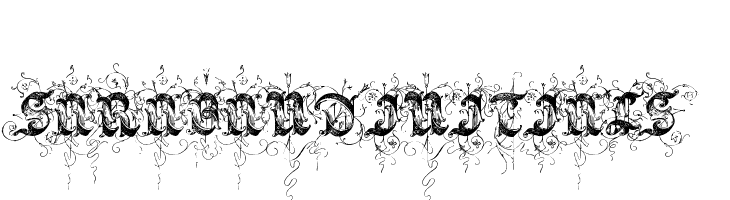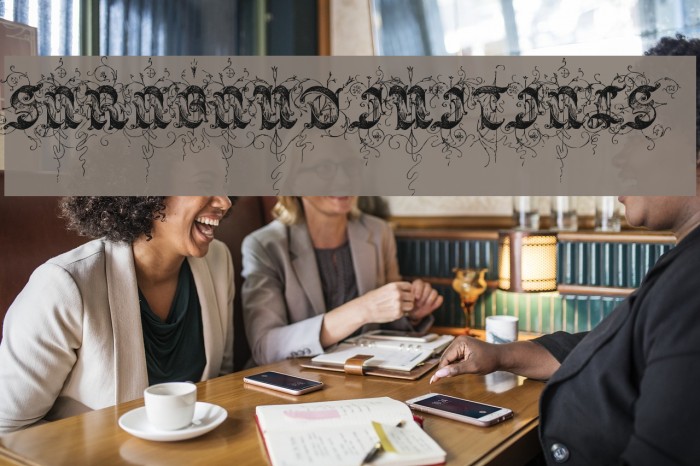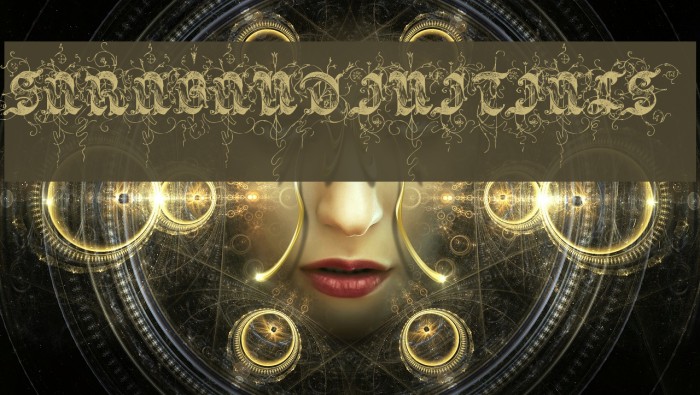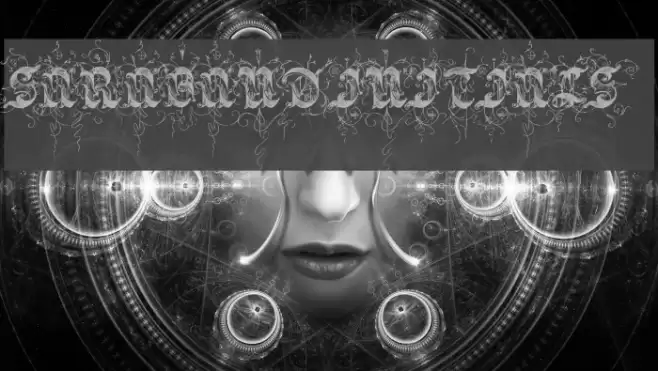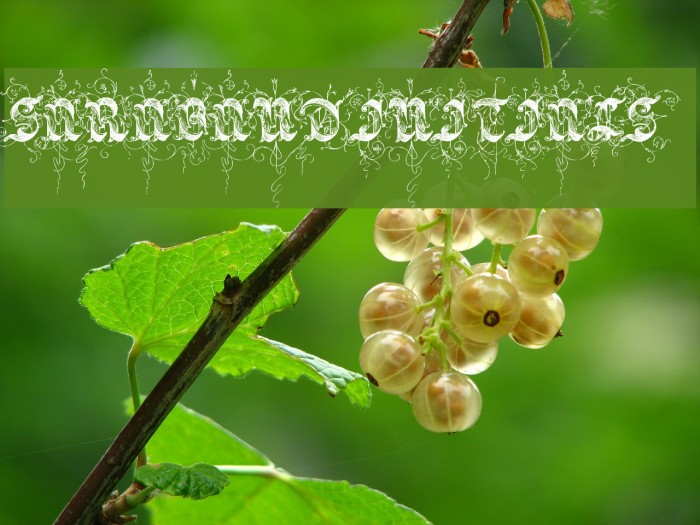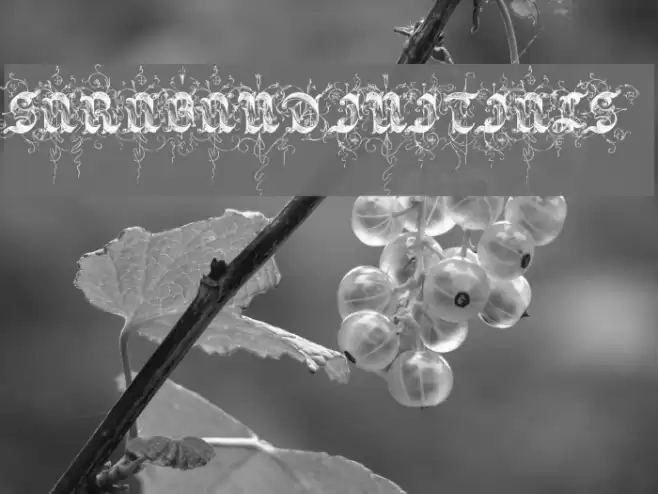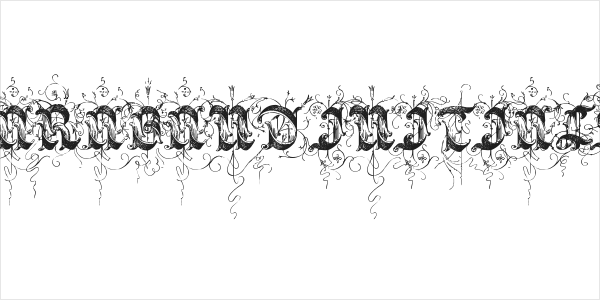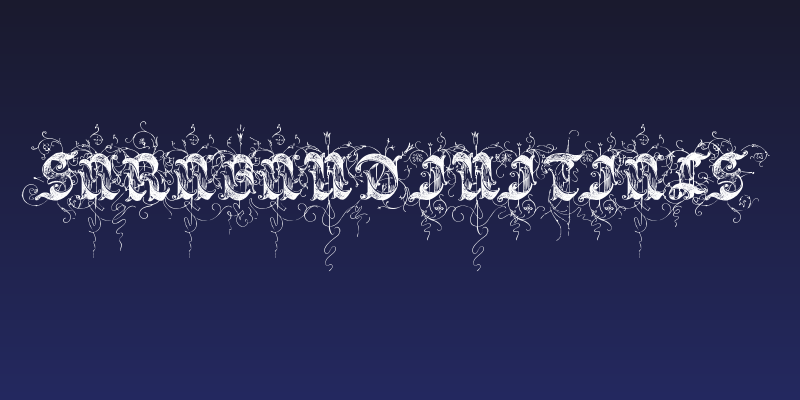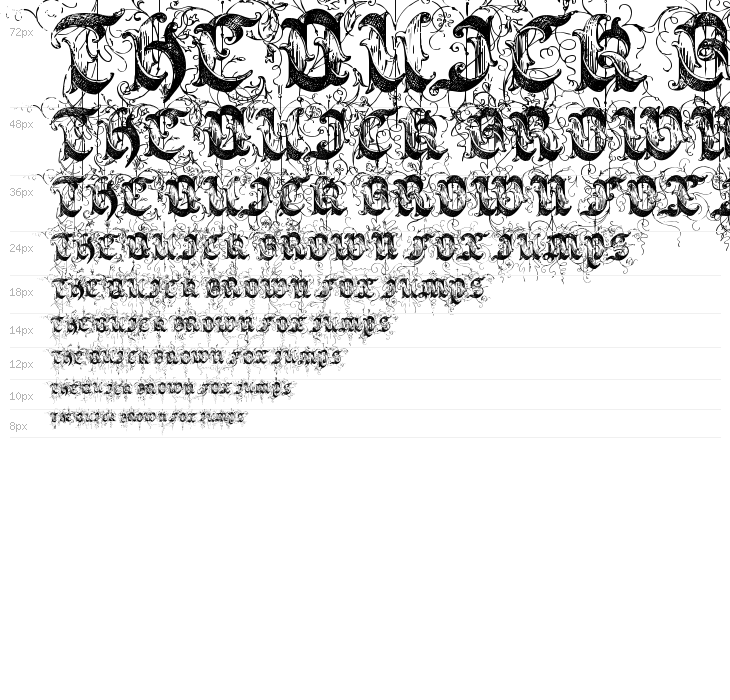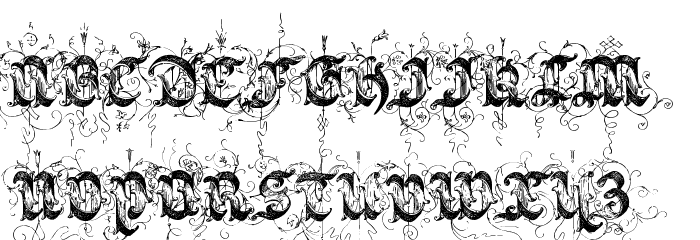
Saraband Initials Font
Saraband Initials Description
This font is a highly decorative and intricate design, featuring elaborate flourishes and embellishments that give it a distinctly ornate and classical appearance. Each character is adorned with swirling lines and detailed accents, reminiscent of historical calligraphy and illuminated manuscripts. The overall aesthetic is rich and luxurious, making it ideal for projects that require a touch of elegance and sophistication. The complexity of the design suggests a careful and artistic approach to typography, with a focus on visual impact and artistic expression.
| Use Case | Logos, Headlines, Decorative purposes |
| Proposed Projects | Ideal for wedding invitations, luxury branding, historical themed projects, and decorative book covers. |